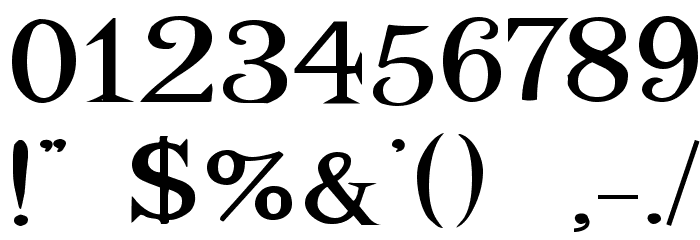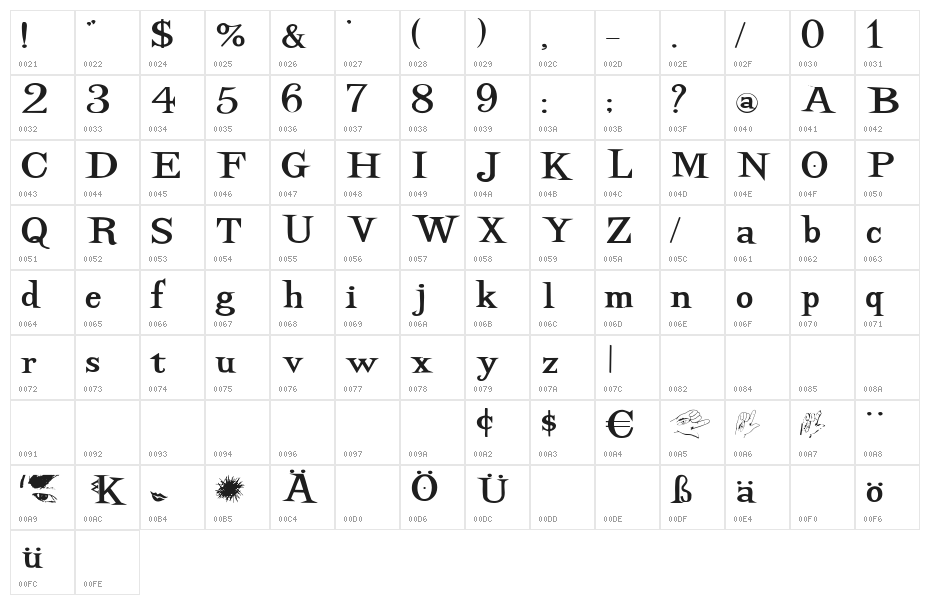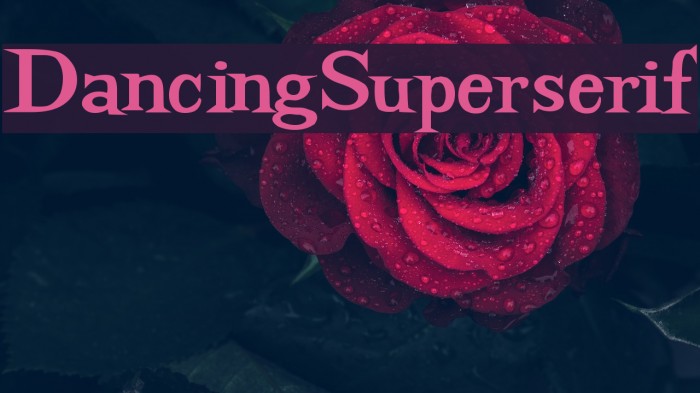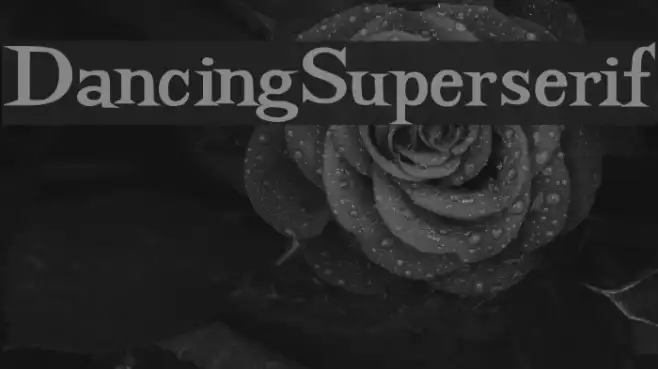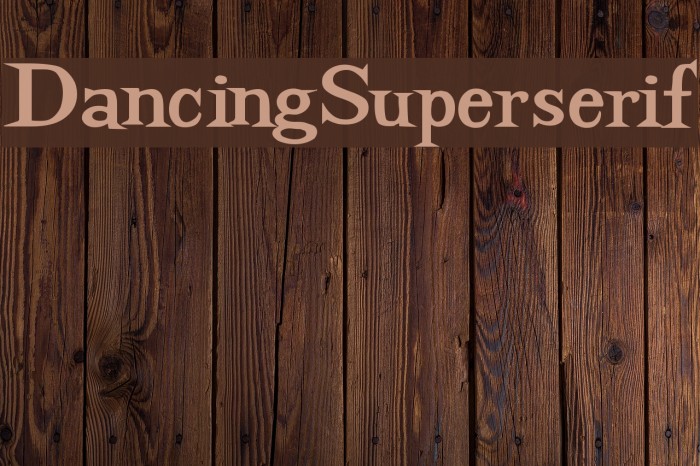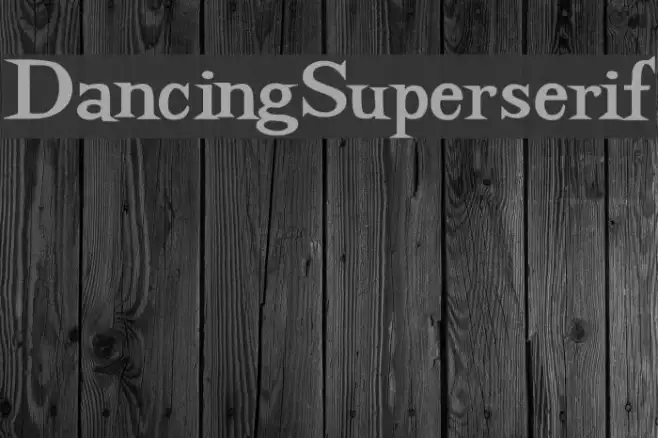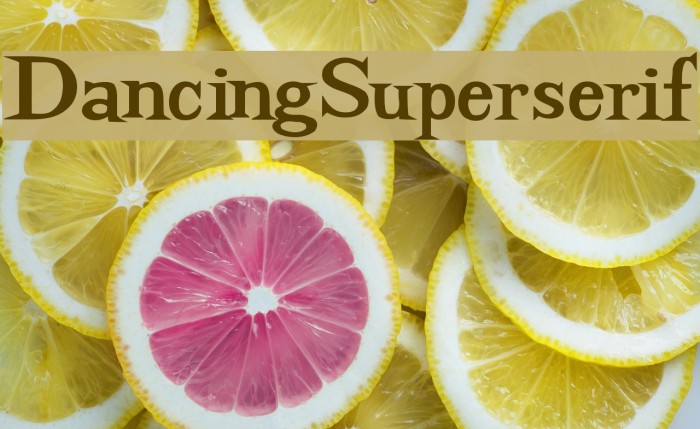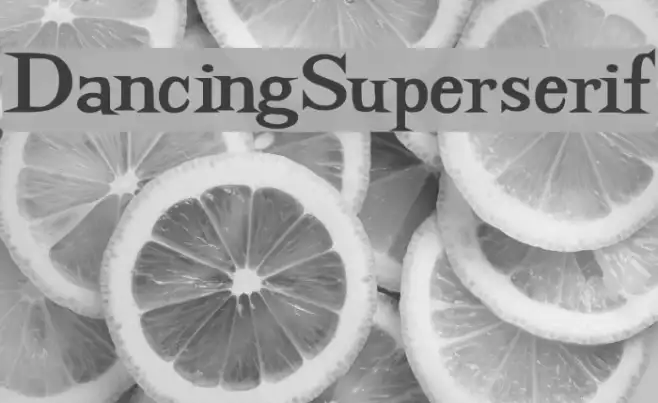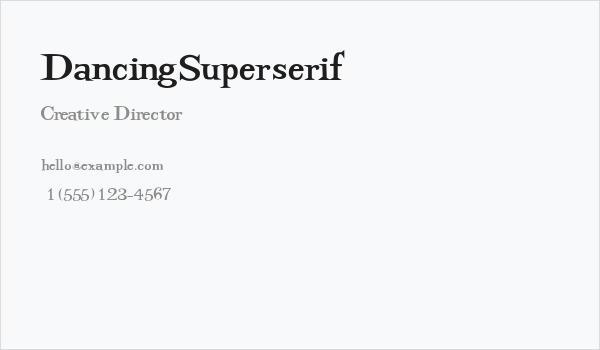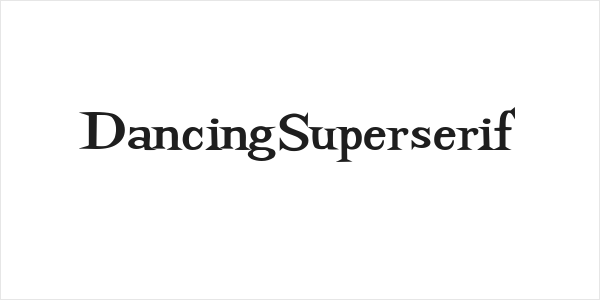
DancingSuperserif Font
DancingSuperserif Description
This font is a bold and expressive serif typeface that combines traditional serif elements with a playful twist. The characters exhibit a high contrast between thick and thin strokes, giving it a dramatic and elegant appearance. The serifs are pronounced and slightly exaggerated, adding a touch of sophistication. The overall design is both classic and modern, making it versatile for various design needs. The uppercase letters are tall and commanding, while the lowercase letters maintain a consistent style with a slightly whimsical flair. The numerals are bold and clear, ensuring readability. Special characters are well-integrated, maintaining the font's unique style.